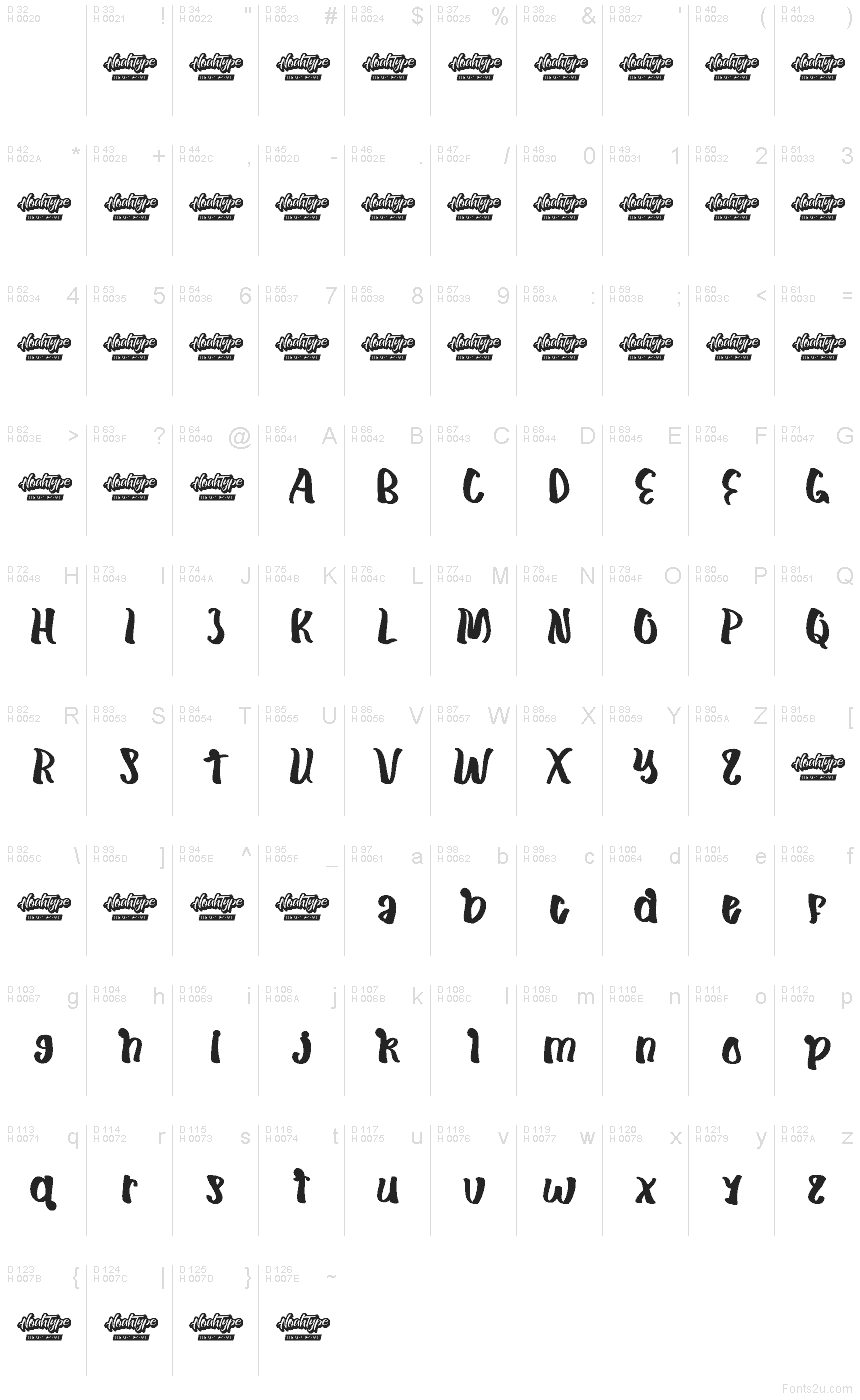
Hey Darling Demo
Hey Darling font by Noah Type is a free handwritten typeface with juicy, brushy strokes and a playful bounce. Letters swell and taper like fresh ink on smooth paper, leaving soft edges and a lively rhythm that feels warm, human, and a little mischievous. The chunky weight keeps it legible while the loose pacing brings a friendly, conversational tone.
Using Hey Darling, headlines pop without shouting and short phrases land with charm. It shines on greeting cards, kids’ branding, sticker packs, social posts, café menus, and cozy packaging. This free font works beautifully for quotes and logo marks that need personality; pair it with a clean sans for supporting text, and keep Hey Darling slightly larger to let its texture sing.